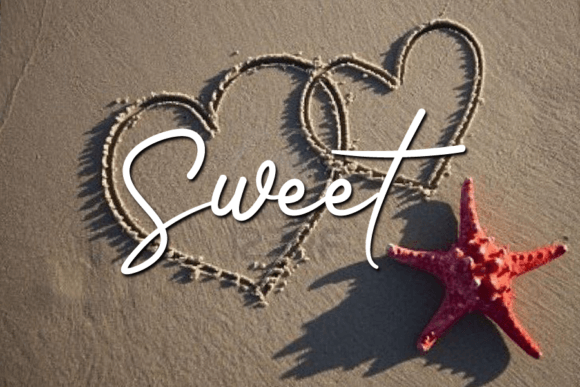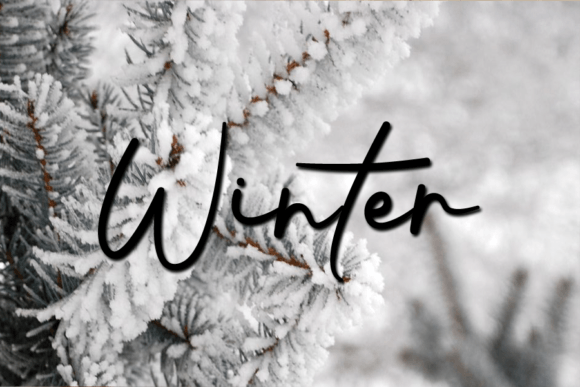
Romantic Christ Font
About Romantic Christ Font
Romantic Christ is a simple and friendly handwritten font. Whether you’re using it for crafts, digital design, presentations, or making greeting cards, this font has the potential to become your favorite go-to font, no matter the occasion!
It is suitable for a logotype, headline, corporate identity, brand identity, apparel industry, poster, music, movie, game, magazine, book, comic, cartoon, YouTube, Instagram, website, or any of your creative design projects.